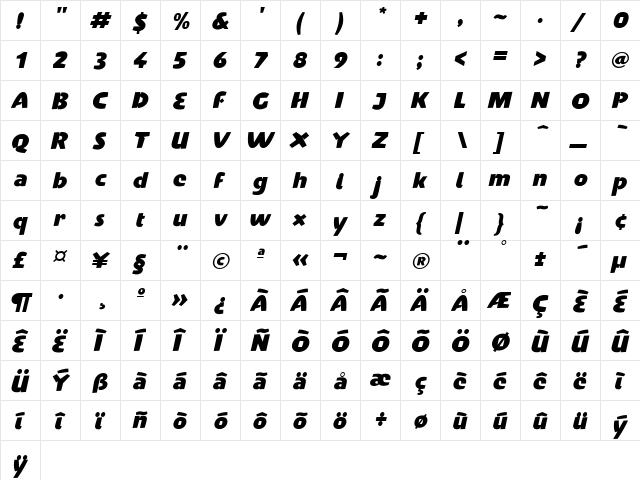
Penguin Bold Italic Font Preview
| Foundry | Copr. Nick Cooke, . Published by FontShop International. FontFont release |
Design Context for Penguin Typeface
Penguin offers clean, dependable letterforms without strong stylistic allegiance, making it a practical choice for designers who need flexibility. The dynamic lean of this cut emphasises speed and emphasis in any layout. The heavy weight commands attention and anchors typographic hierarchies.
Pro Tip: Try Penguin for annotation and caption copy alongside an upright companion — the contrast in angle creates a dynamic but ordered typographic system.